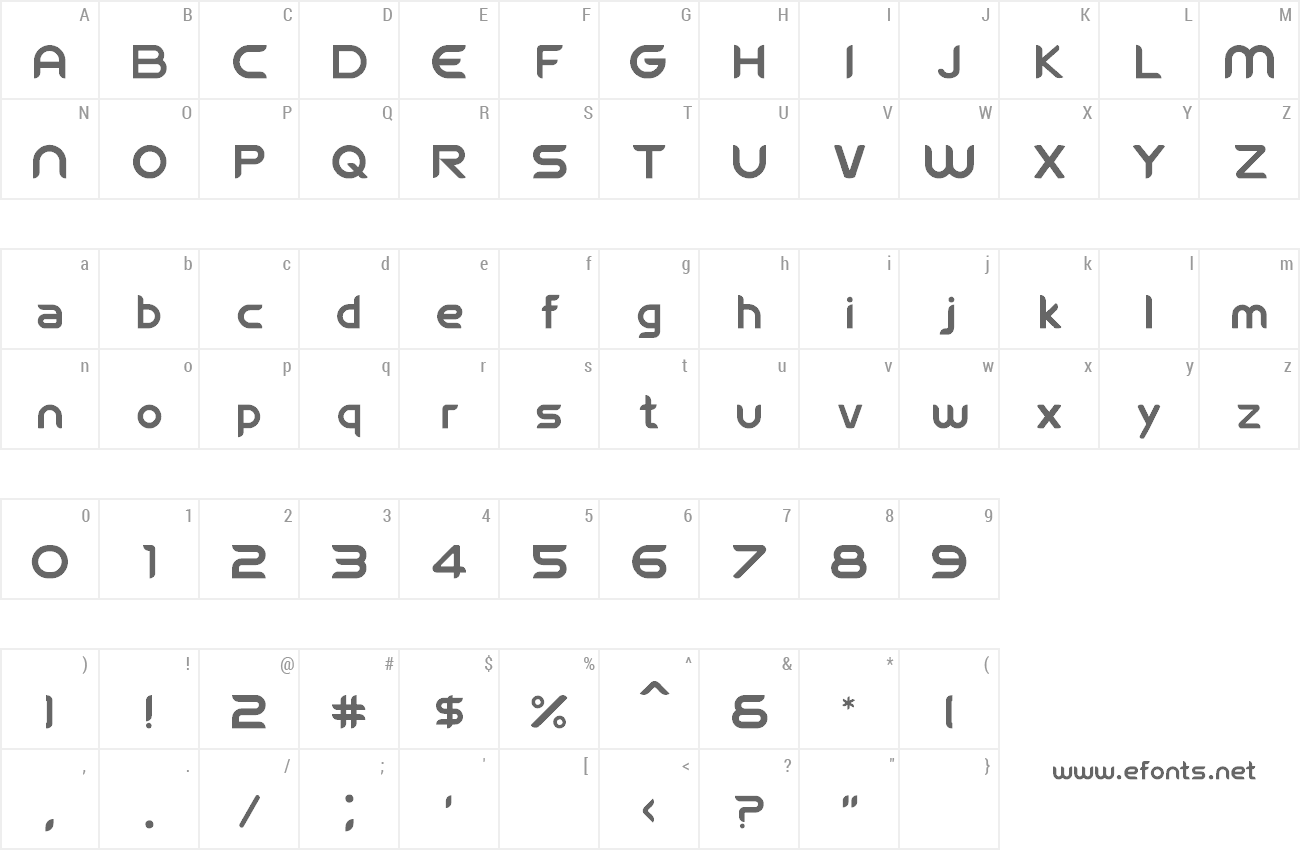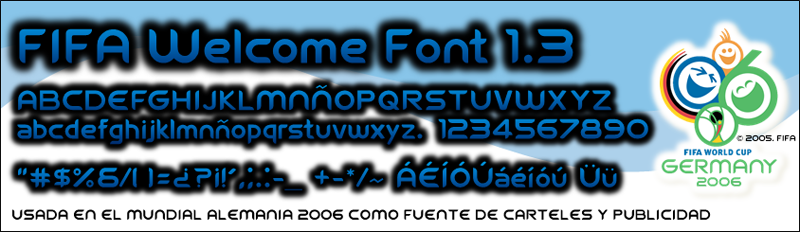
| Font name: | FIFA Welcome |
| Author: | hacker2009i |
| Note by hacker2009i | |
| ES: Esta fuente fue usada en el mundial Alemania 2006 como diseño en carteles y publicidad del evento. / EN: This font was used in World Cup Germany 2006 as main design in posters and publishing of the event. |